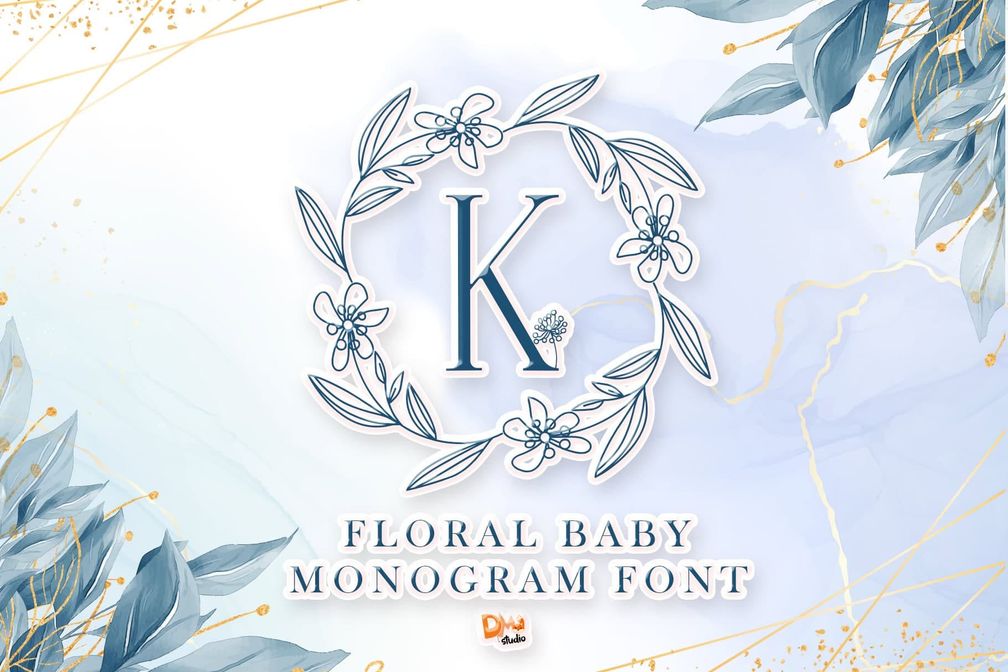
Floral Baby Monogram
Floral Baby Monogram Font – Elegant & Personalized Typeface
A Floral Baby Monogram font is a decorative typeface designed specifically for creating stylish initials, logos, and personalized branding. With its elegant and intricate letterforms, this font is ideal for wedding invitations, luxury branding, boutique packaging, custom stationery, embroidery, and artistic designs. Monogram fonts often feature ornate details, floral elements, or interlocking letters, making them perfect for adding a sophisticated and timeless touch to any project.
• Designed for Monograms: Beautifully crafted for initials, logos, and personalized branding.
• Elegant & Decorative Style: Features intricate, stylish, or minimalist letterforms.
• Perfect for Luxury & Wedding Projects: Ideal for invitations, business branding, and personalized gifts.
• Versatile Aesthetic: Available in classic, vintage, modern, or ornamental styles.